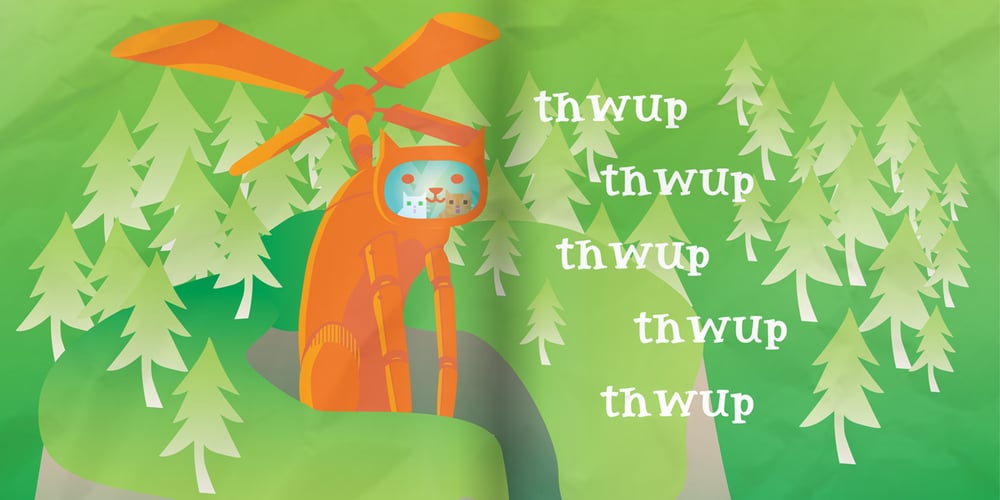
Arco Web
Arco Web font
Arco Web Font Family was designed by Luke William Turvey, Natsuko Hayashida and published by Okaycat. Arco Web contains 2 styles and family package options. The Arco Web font sets a friendly mood with casual artistic flair. Arco Web features extended characters, and contains West European diacritics & ligatures. Highly suitable for international environments & publications.